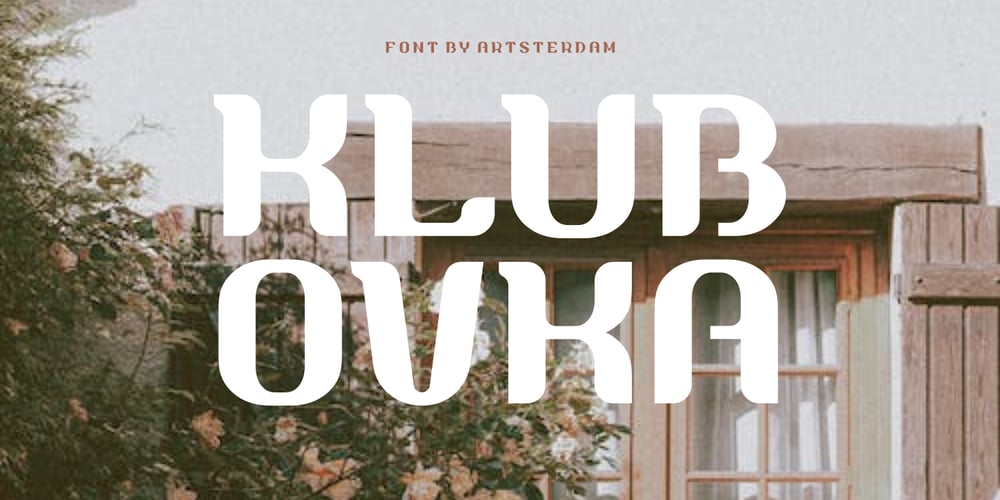
Klubovka
Klubovka font
Klubovka Font Family was designed by Ruslan Tsyganov and published by artsterdam. Klubovka contains 1 styles and family package options. Klubovka is a modern typeface with a vintage style. The font is made in a combined style, so you can’t call it a serif or sans-serif typeface. Latin and cyrillic alphabets are available with a modern letter design, as well as support for other languages. The font looks good in both headings and body copy.